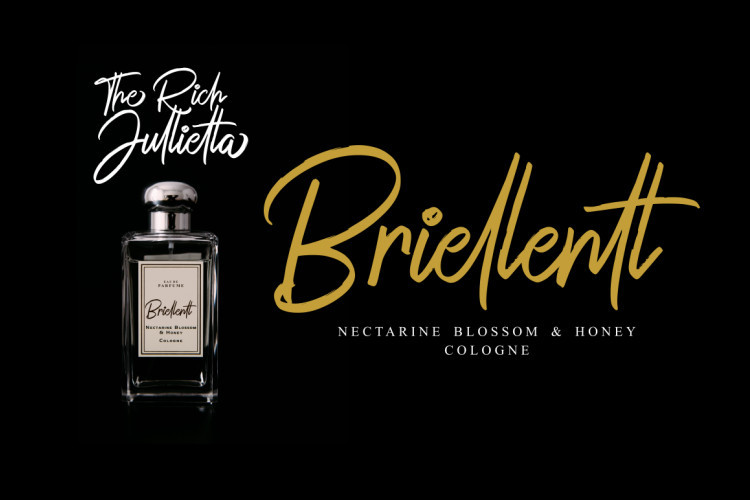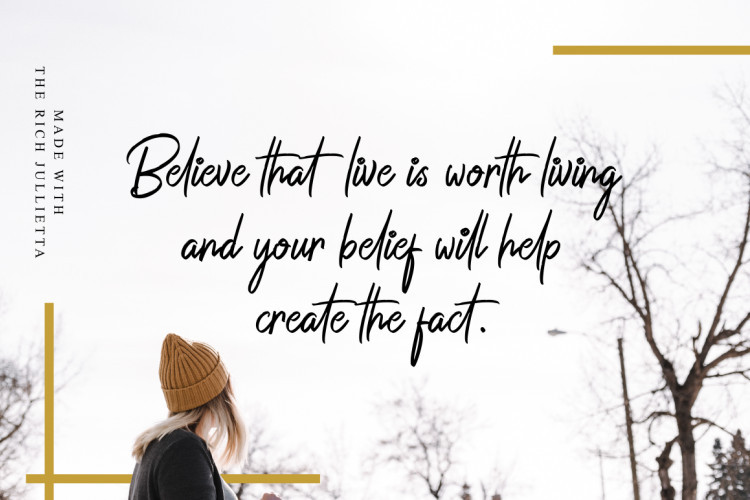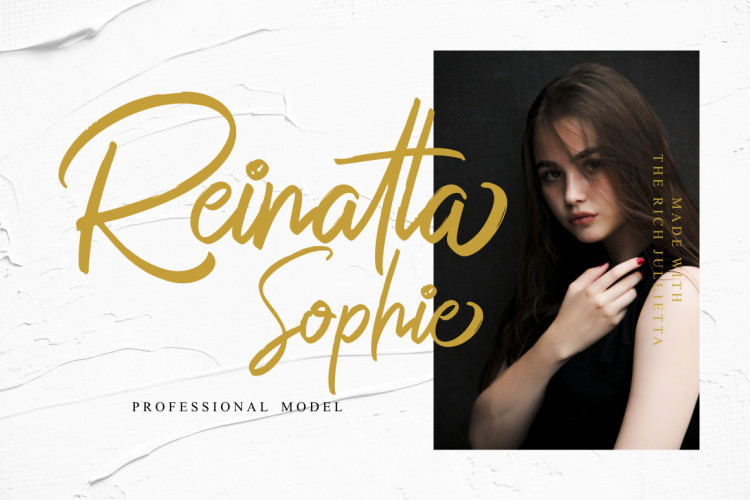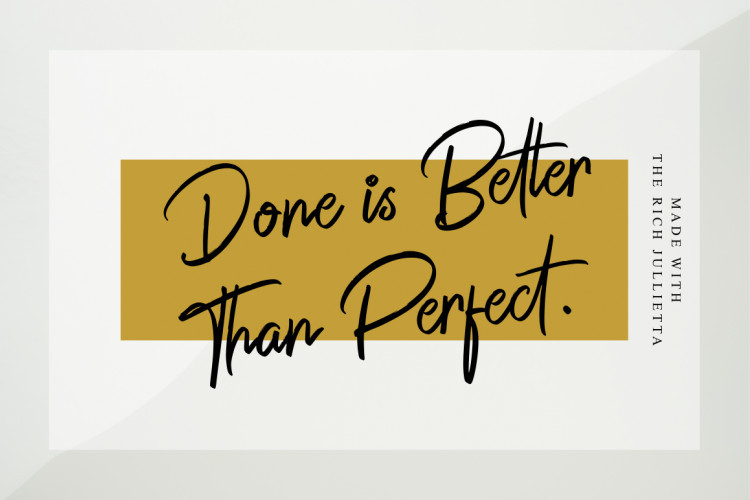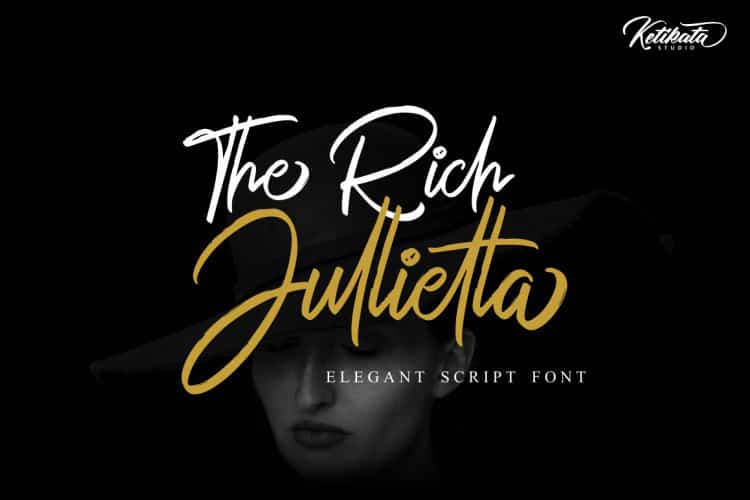
The Rich Jullietta Script Font
Hi designer! I am happy to introduce you to an elegant script font. Introducing The Rich Jullietta Font! It’s designed by Ketikata Studio. The Rich Jullietta Handwritten with one natural scratch. looks original and can be used for each of your projects with certain concepts. Impatiently looking forward to The Rich Jullietta giving touch and perfecting your design project. such as wedding invitations, social media posts, promotional material, quotes, flyers, packaging, or logos for branding and others.